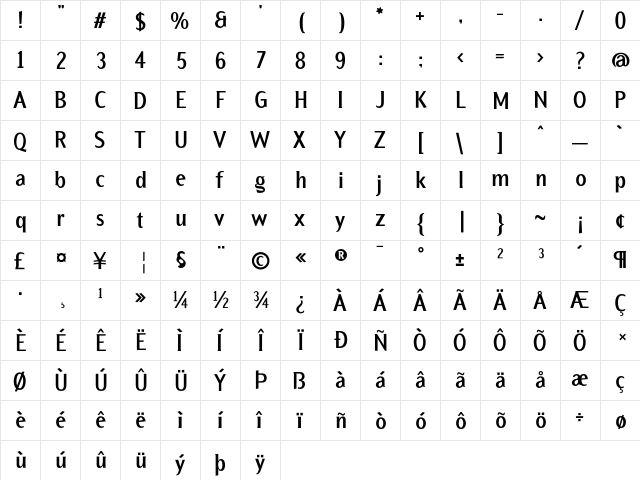
Formica Bold
Design Context for Formica Typeface
Formica offers clean, dependable letterforms without strong stylistic allegiance, making it a practical choice for designers who need flexibility. The heavy weight commands attention and anchors typographic hierarchies.